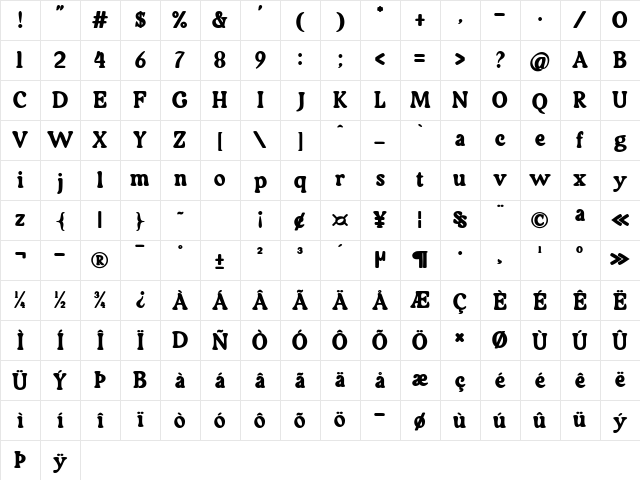
Romance Breakin Regular
Foundry: Fikryal Studio
Designer: Muhamad Fikry Nuralif
Complete Romance Breakin Regular glyph index. Displaying only characters natively supported by Romance Breakin Regular font.
Design Context for Romance Breakin
Romance Breakin is a composed and adaptable typeface that performs quietly and consistently across a wide range of design contexts.
Pro Tip: Use Romance Breakin in both headline and body roles to test its range before committing to a single application.